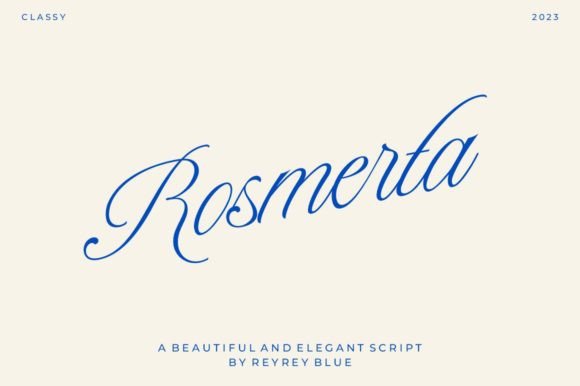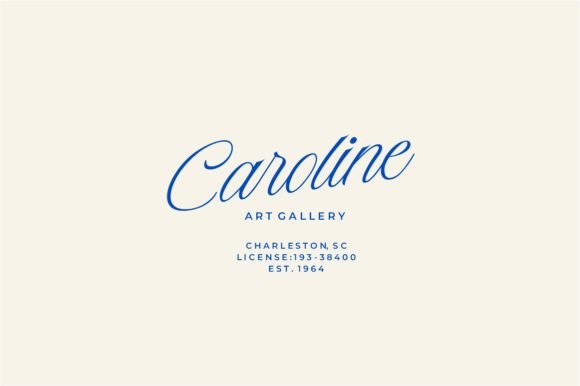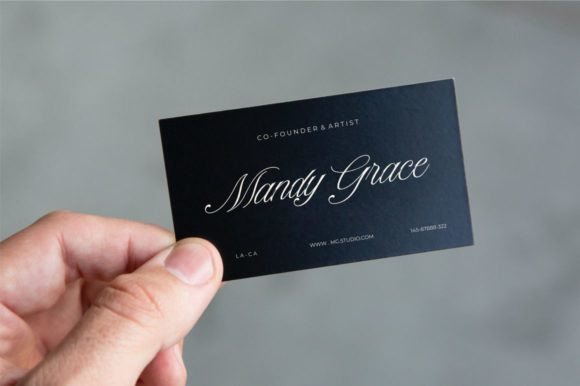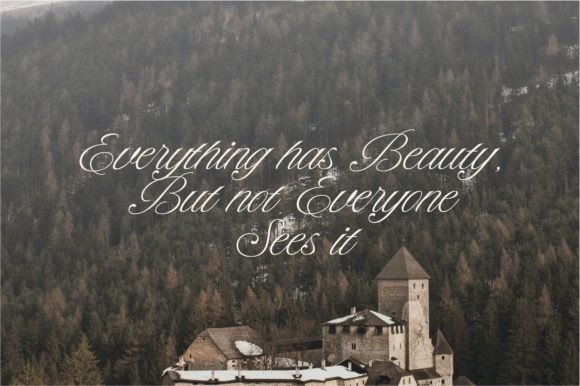
Rosmerta Font: Elegant Vintage Script for Wedding & Logo Design
About the Rosmerta Font
The Rosmerta Font offers a perfect balance of form and function for your design needs. Rosmerta is a classy, vintage-style script font that exudes elegance and sophistication. With its thin and graceful letterforms, it captures the essence of timeless beauty. Perfect for adding a touch of refined charm to wedding invitations, branding, and editorial designs, Rosmerta brings a sense of nostalgia and grace to any project. Embrace the vintage allure with this exquisite and versatile font.
Rosmerta’s elegant, thin strokes make it ideal for headlines, short text blocks on invitations or branding materials, and even select packaging applications where a touch of vintage sophistication is desired. However, its delicate nature makes it unsuitable for body text or UI elements; legibility suffers at smaller sizes and in longer passages.
Pairing Rosmerta effectively requires considering its delicate nature. A clean sans-serif like Montserrat or a geometric sans-serif such as Futura would provide a strong, modern counterpoint, maintaining readability while highlighting Rosmerta’s grace. For a more traditional feel, a classic serif like Garamond or Didot could create a harmonious, refined aesthetic.
Rosmerta projects a sophisticated, nostalgic personality; think luxury brands, boutique hotels, high-end stationery, or projects emphasizing heritage and timeless quality. Its refined charm is best showcased sparingly, allowing its delicate beauty to make a lasting impression.
Rosmerta Font Usage Examples
Rosmerta Font Example